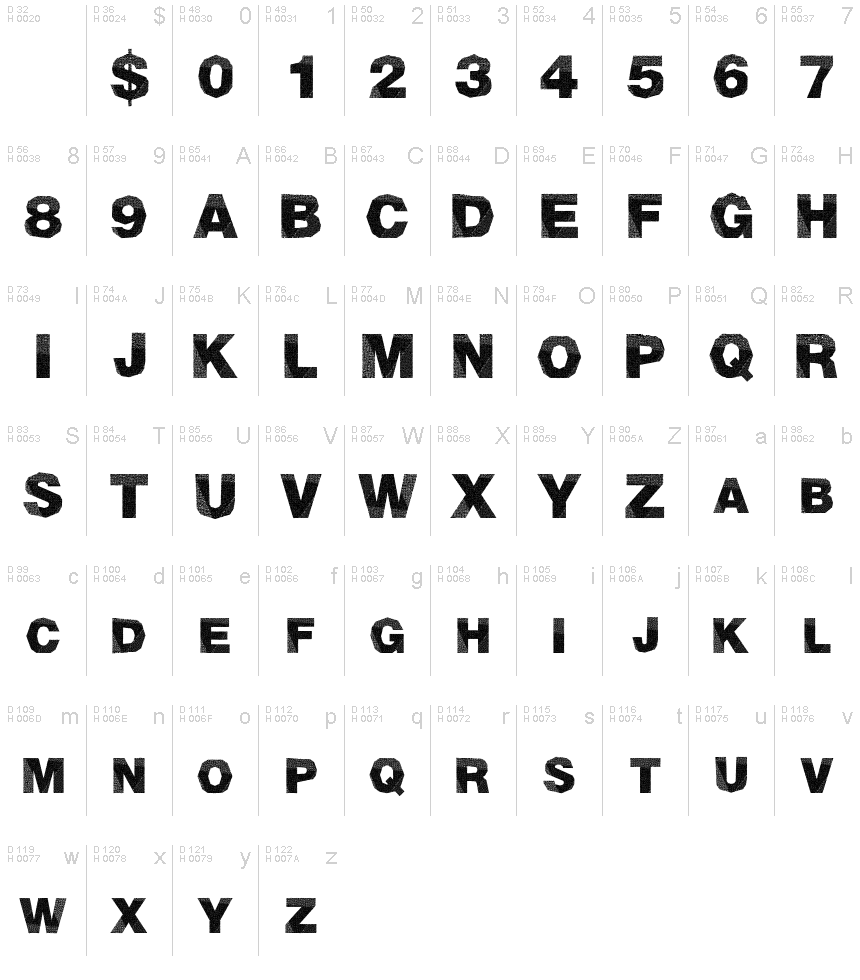
MadTriangle
Mad Triangle is a bold, distinctive display font that commands attention. Its eroded, asymmetric letterforms exude a sense of raw, industrial energy, lending a rugged, unconventional aesthetic.
The uneven edges and distressed texture evoke a sense of weathering and imperfection, adding depth and character to the design. This font's striking visual impact makes it well-suited for eye-catching headlines, posters, and branding applications that seek to convey a sense of gritty, urban edge.
Its unique style can lend an edgy, modern flair to a wide range of design projects.